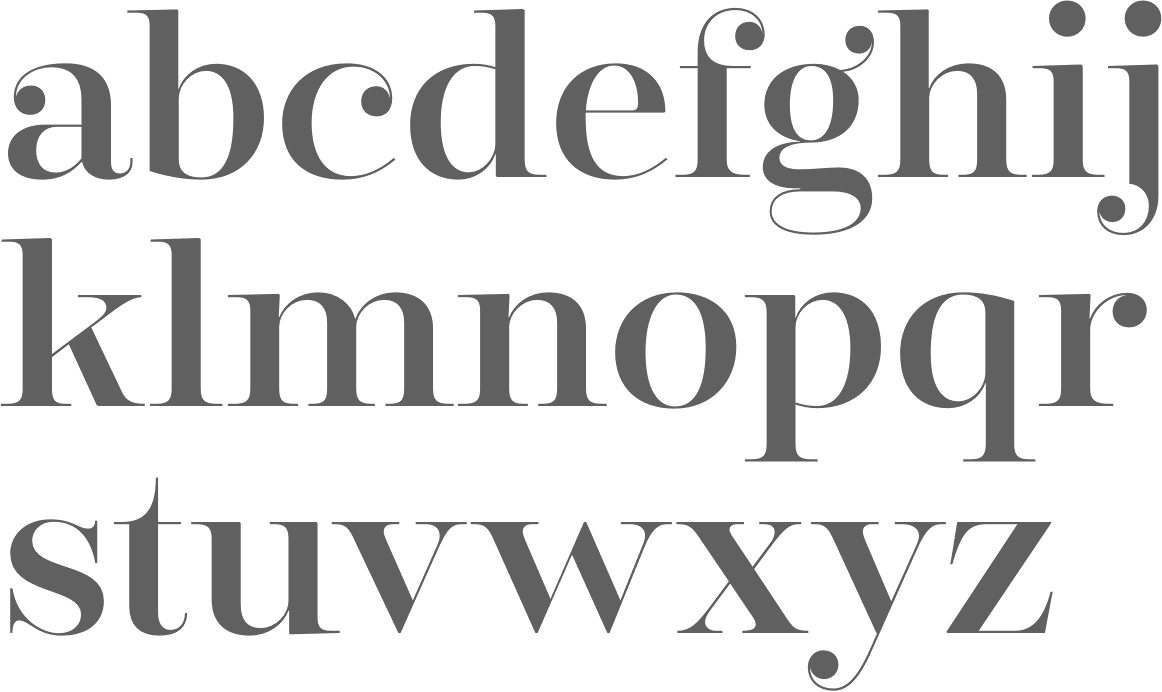
The font is perfect for using with designs related to luxury brands and fashion brands. Those looking for a luxury font filled with swashes that are as unique as the font itself should look no further than the bordemile typeface from letterhend. Explore 40 stunning high fashion fonts to download and find the perfect match that fits your next web and print design projects of all sizes.
It Is Clean And Graceful, And The Elegance That It Delivers Is Second To None.
What i personally love about it is how each trailing letter has a dot linked to it. 21 most used fonts by professional designers Vanity is a chic font specifically made for fashion magazines and blogs.